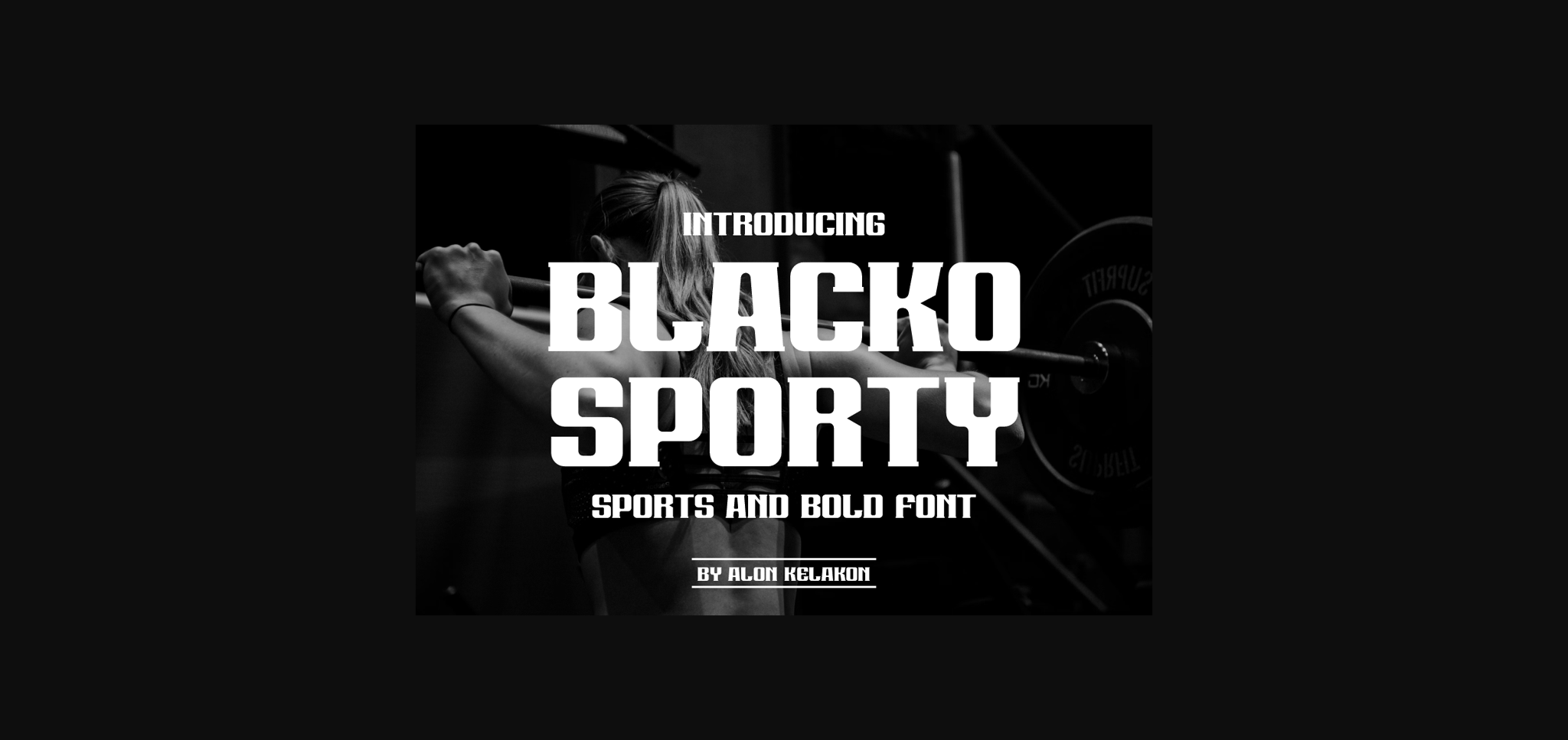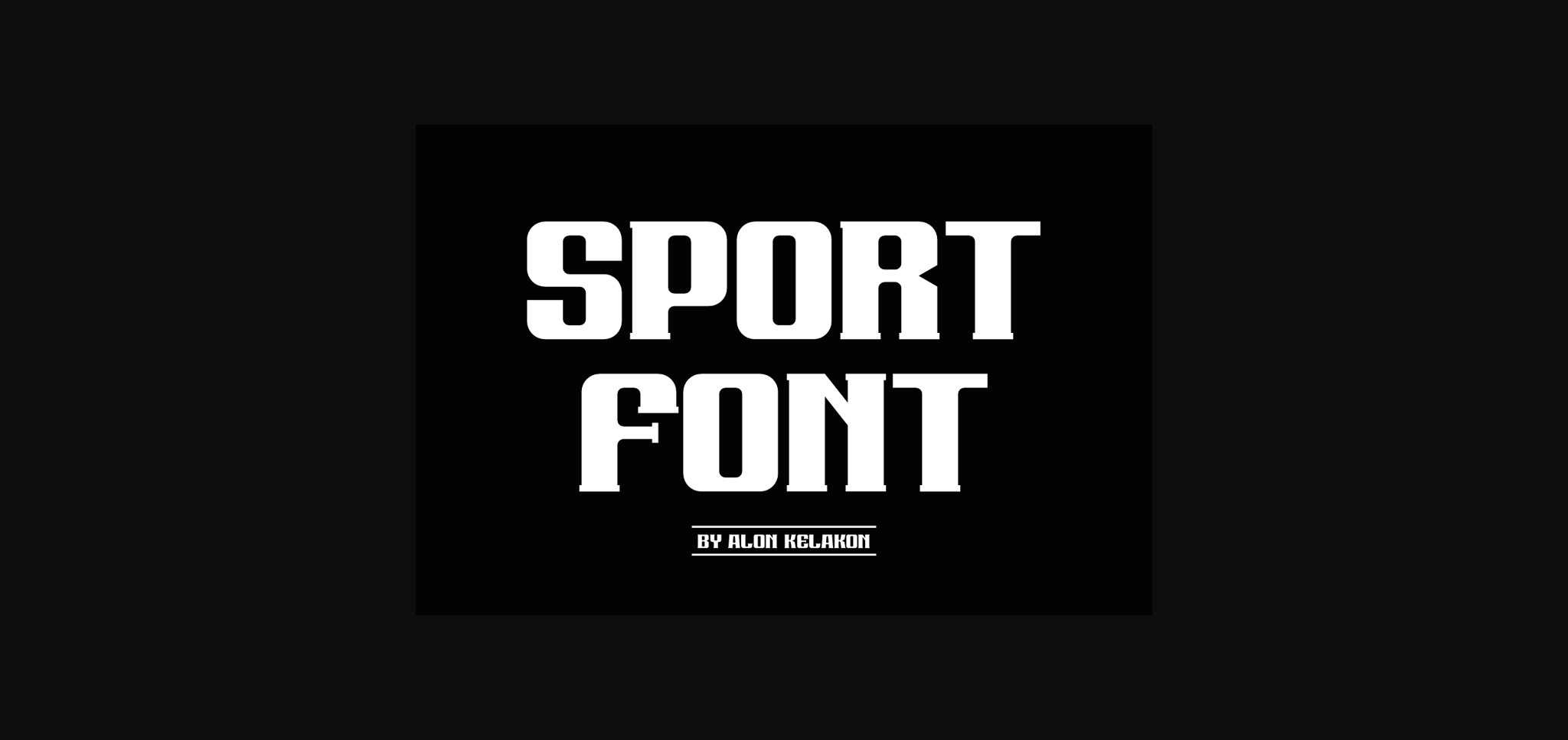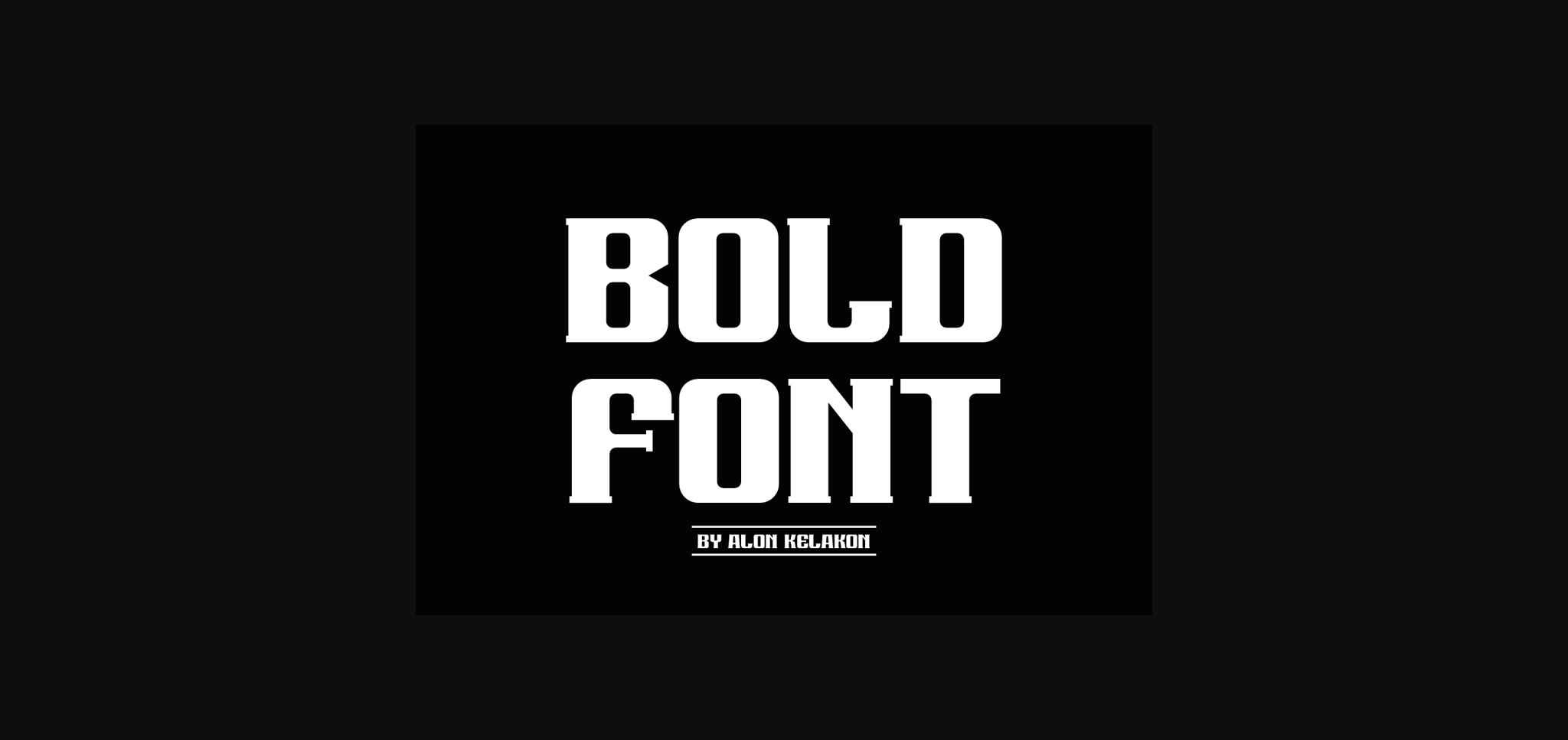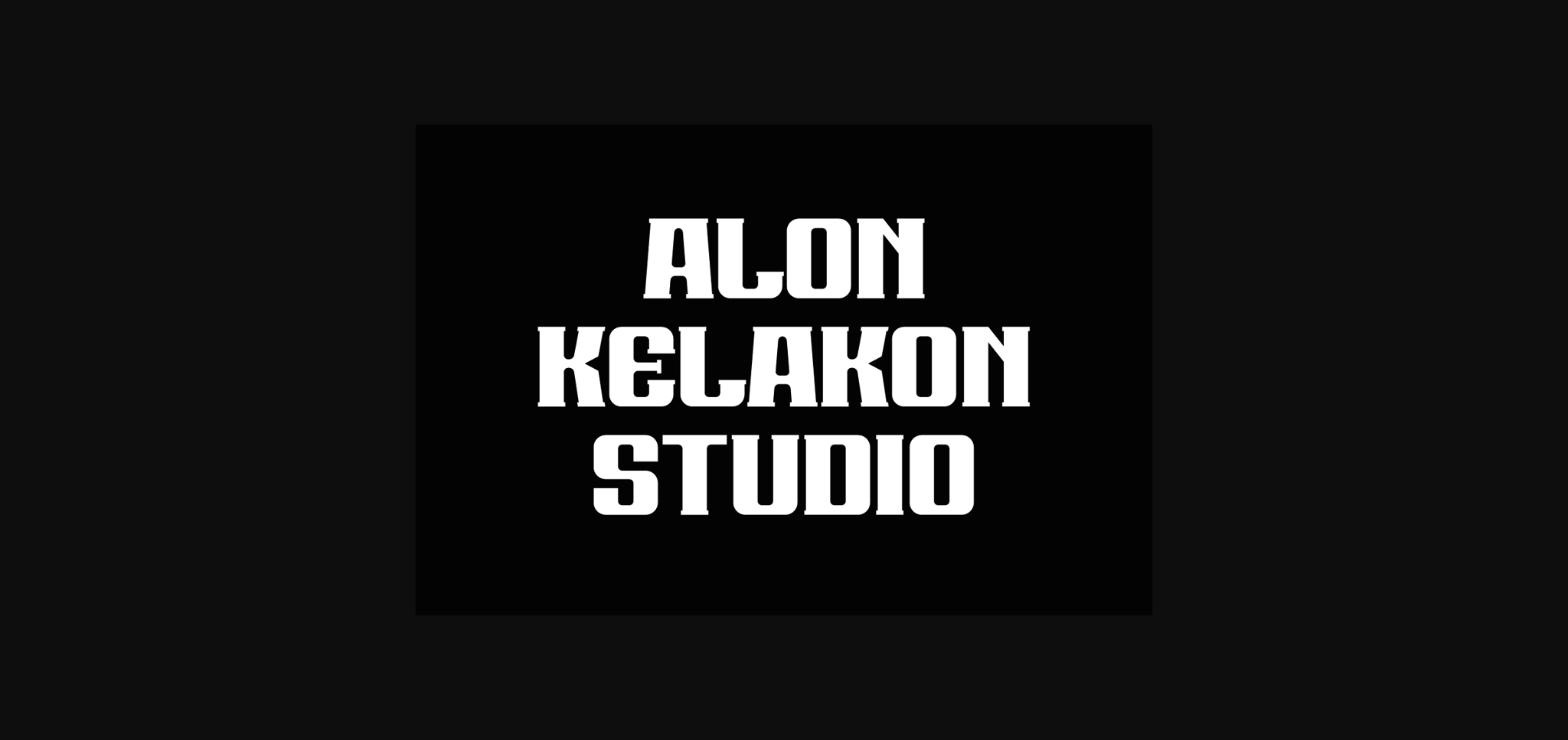
About Blacko Sporty Font
Blacko Sporty s a bold, all caps sans serif font featuring the perfect amount of trendiness. Whether you’re using it for crafting, digital designing, presentations or greeting cards making, it’s perfect!